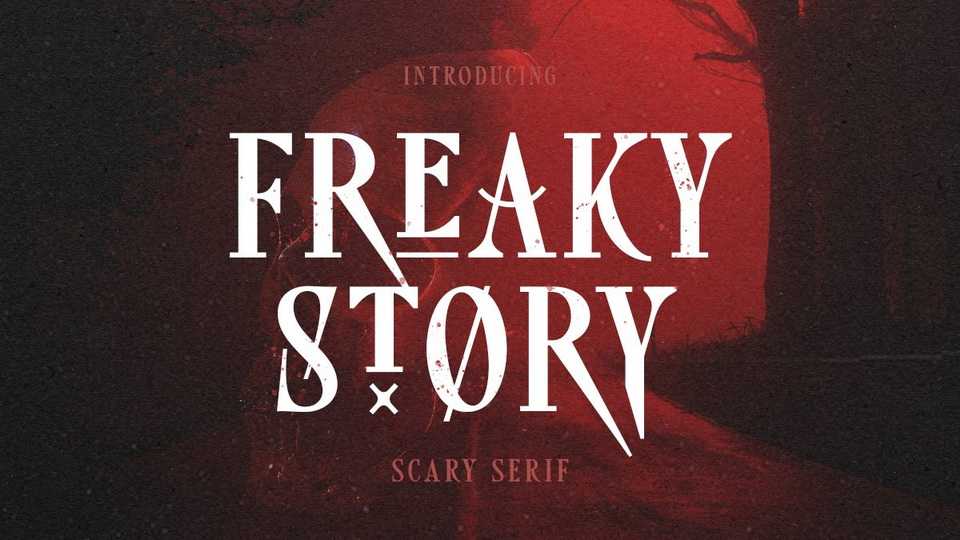
Download Freaky Story font, a condensed serif typeface with horror and creepy vibes. This serif is so unique that will make your design pop up. Freaky Story font is suitable for poster movies especially thriller and horror movies.